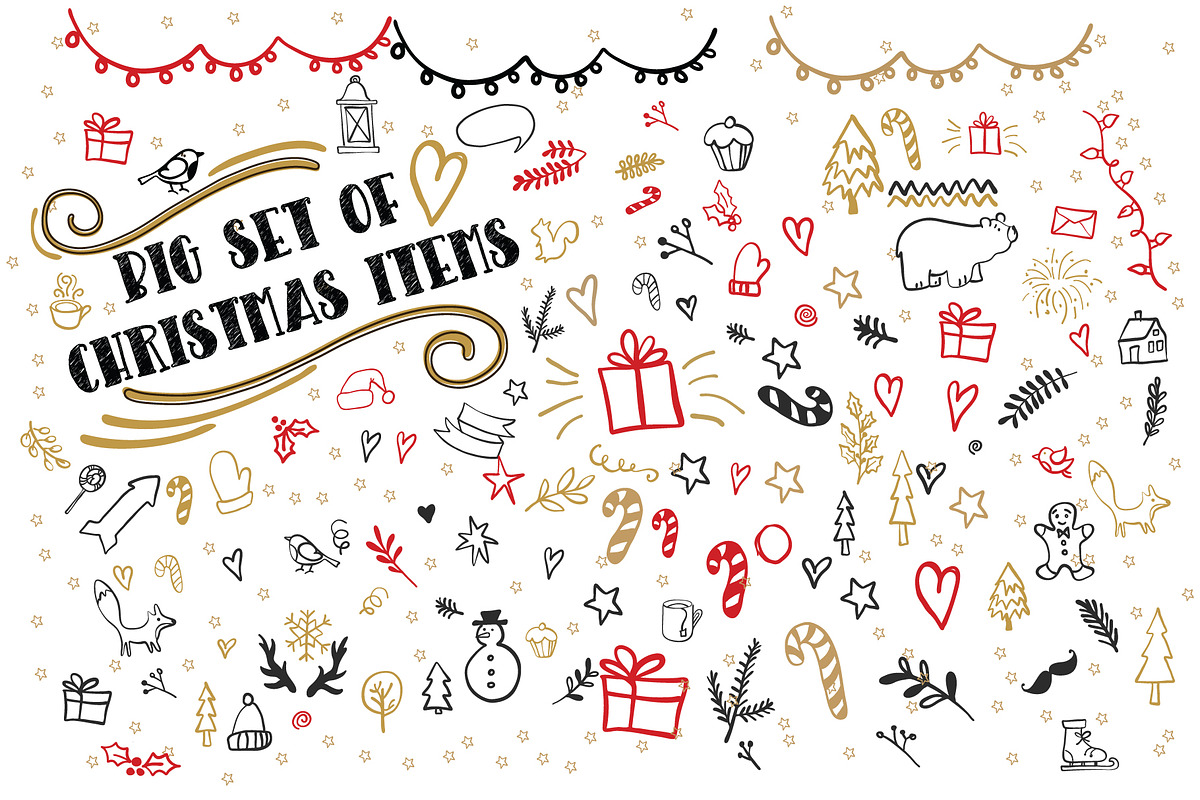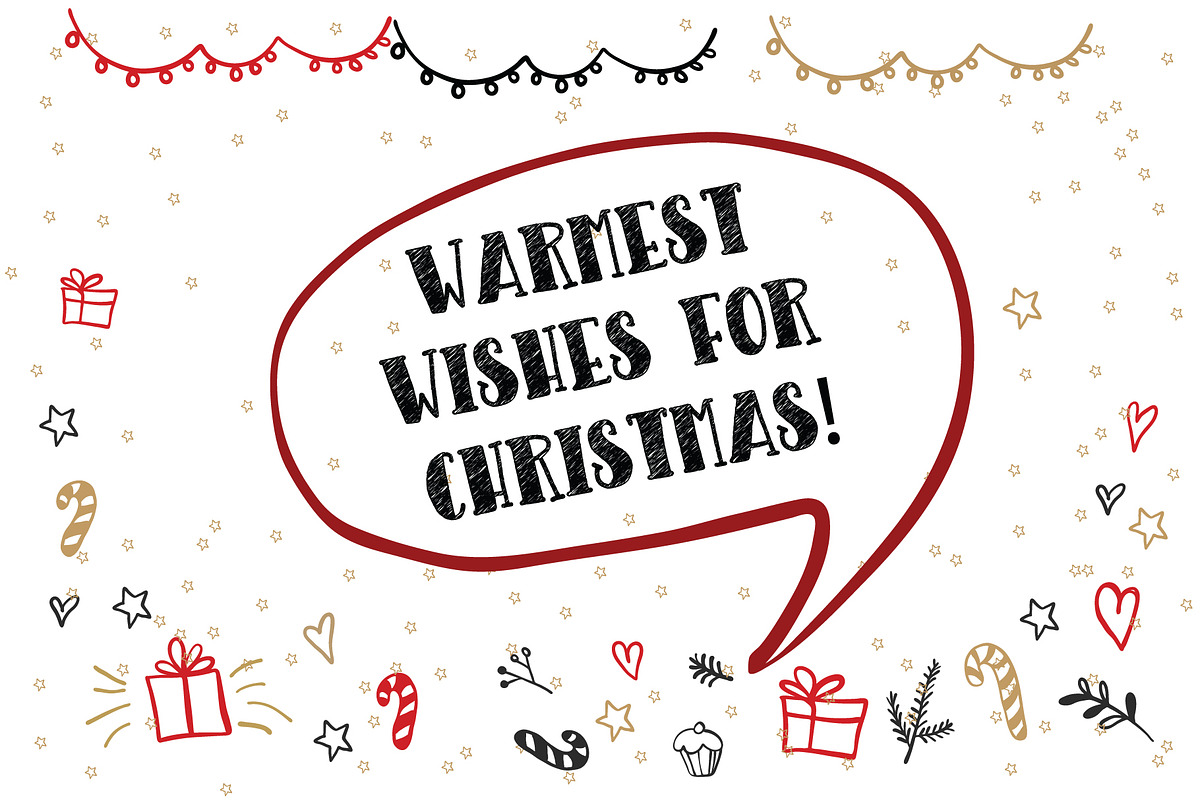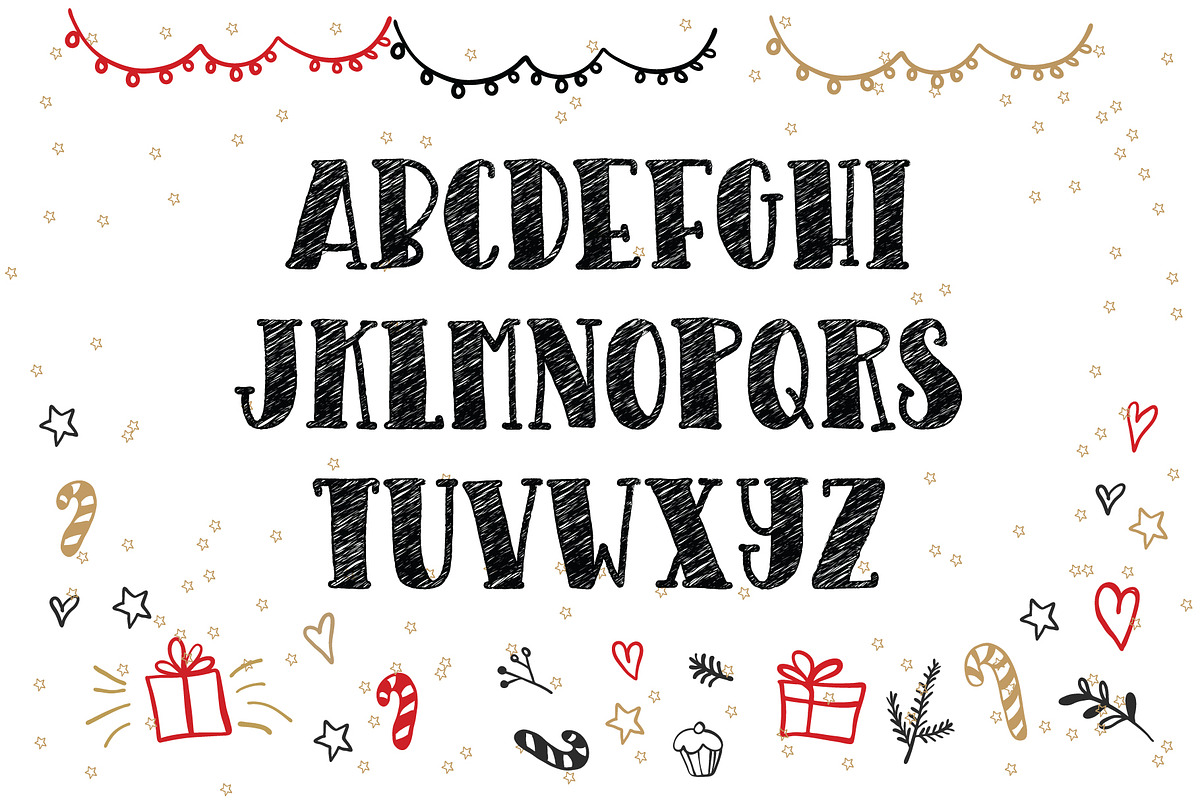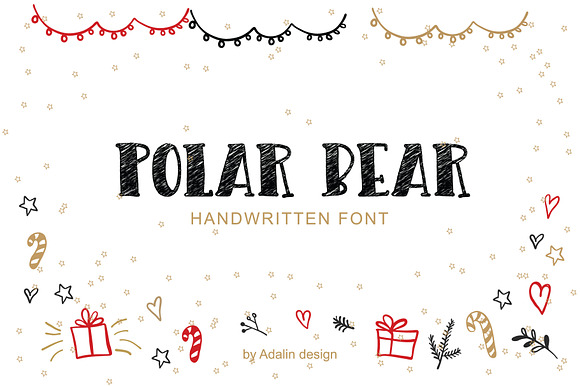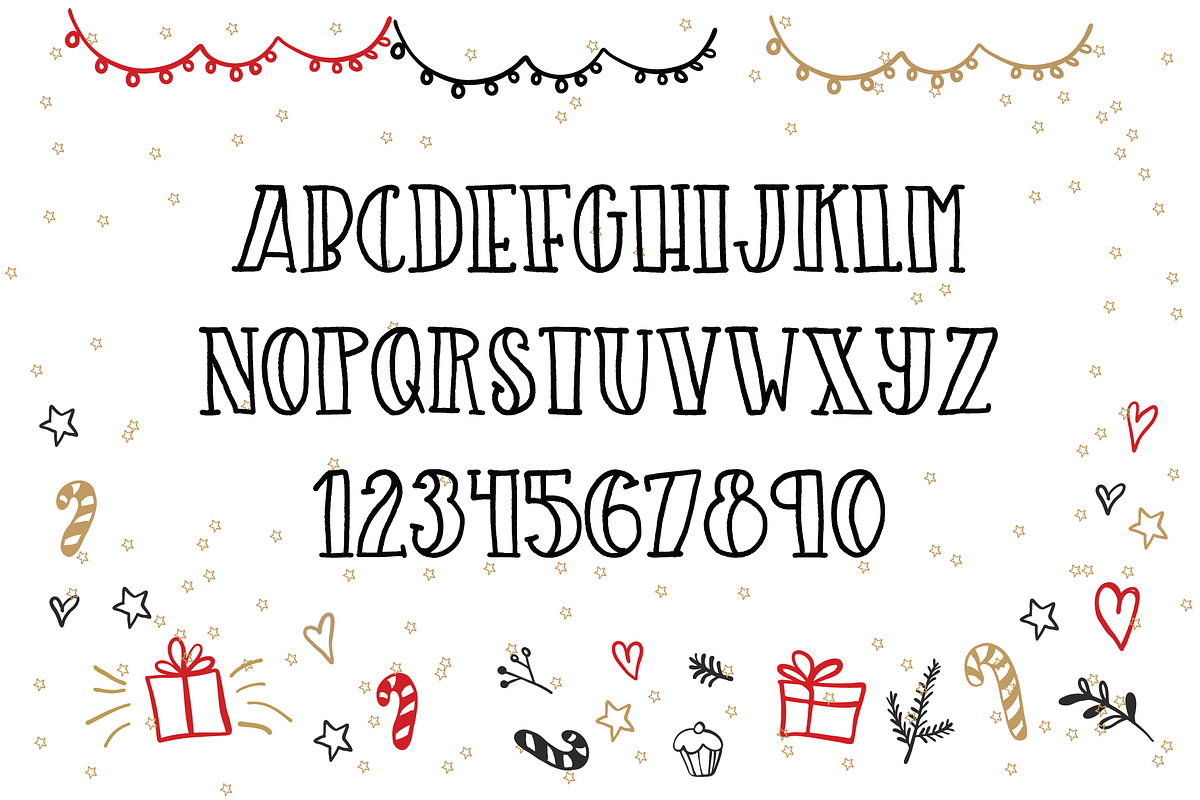
Polar Bear-Christmas Typeface
Ho-Ho-Ho, my friends!
Winter Holidays is coming!
Let me introduce you to your winter Dual-purpose font, with hand-painted characters - Polar Bear.
The set contain set bonus elements. You can use the fully editable doodles. Christmas greeting cards, wedding cards, invitations or decorate your website!